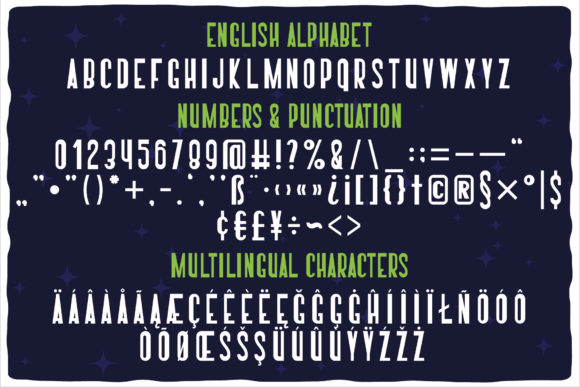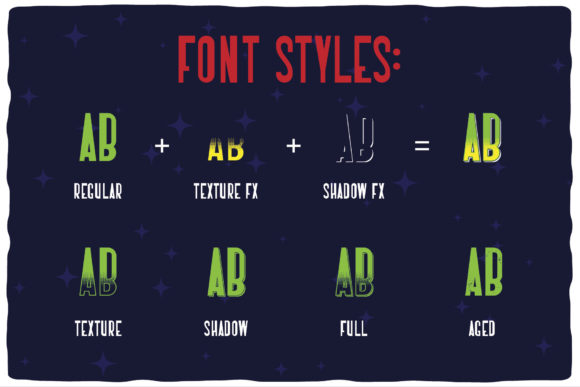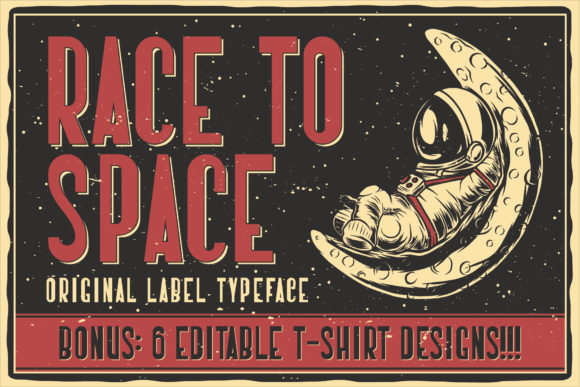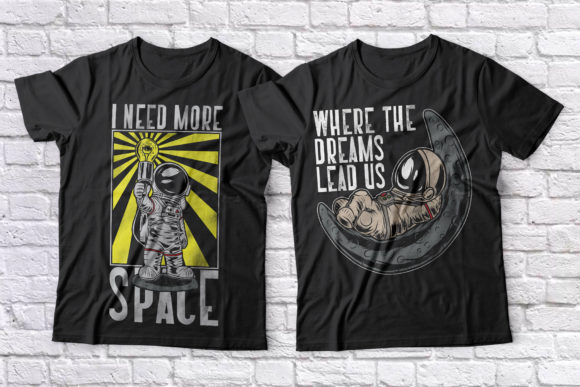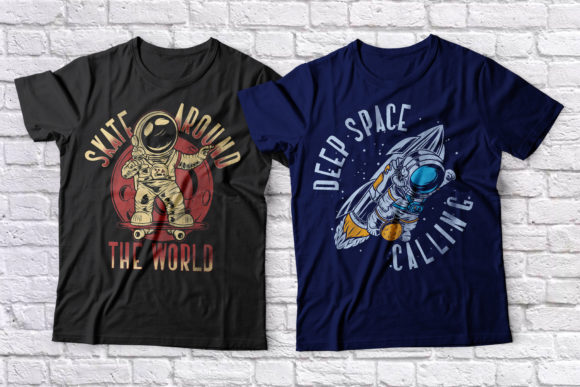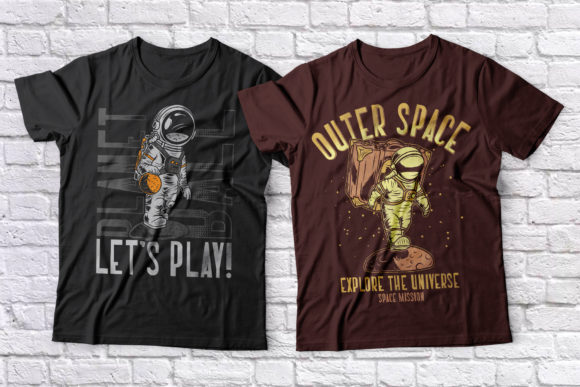
Introduction to Race to Space Font
Race to Space is a bold and chunky lettered display font.
Add this font to your creative ideas and notice how it will make them stand out .
Key Features of Race to Space Font